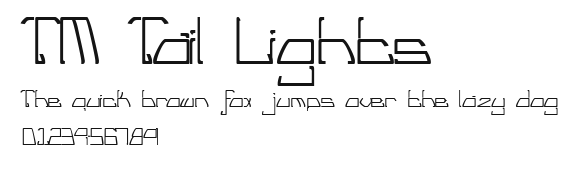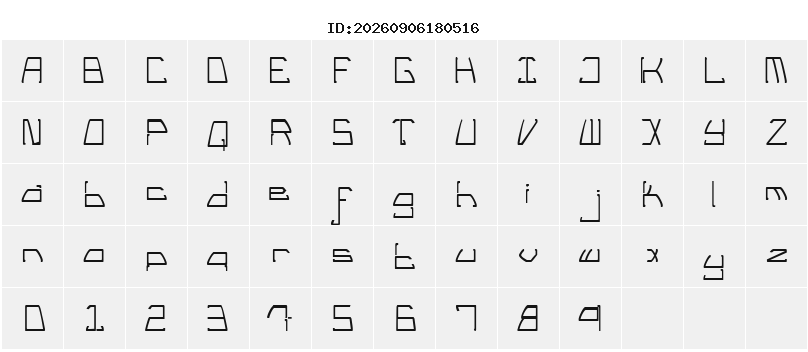
• Font Name: TM Tail Lights
About TM Tail Lights.ttf
TM Tail Lights.ttf is a modern, elegant sans-serif font designed for ultimate readability and visual harmony. Perfect for branding, headlines, web design, and print materials.